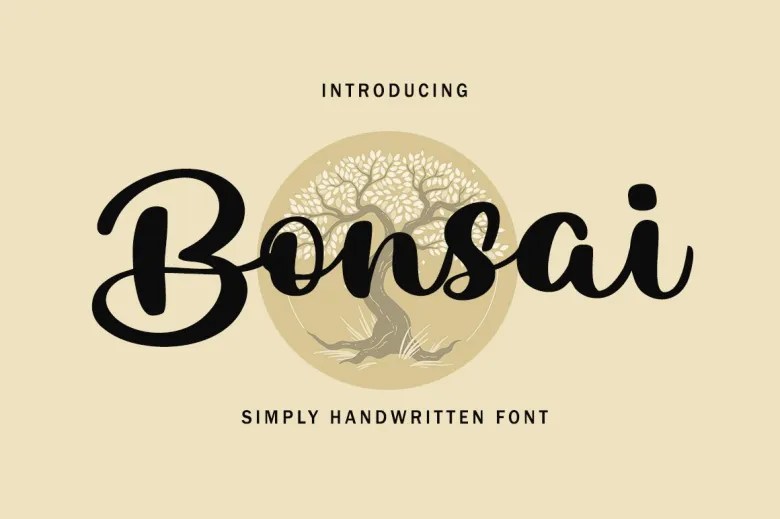
Bonsai Font
Bonsai is an elegant and dynamic handwritten font that brings a lively and expressive touch to your designs. With its flowing curves and intricate bends, Bonsai effortlessly crafts beautiful, hand-crafted typography in just minutes. It’s perfect for a range of applications, including quotes, logos, invitations, product packaging, headers, wedding materials, and more.
Equipped with an extensive set of lowercase characters, Bonsai enables you to create authentic and engaging text quickly and efficiently. Its vibrant style ensures that any message stands out with a unique flair.